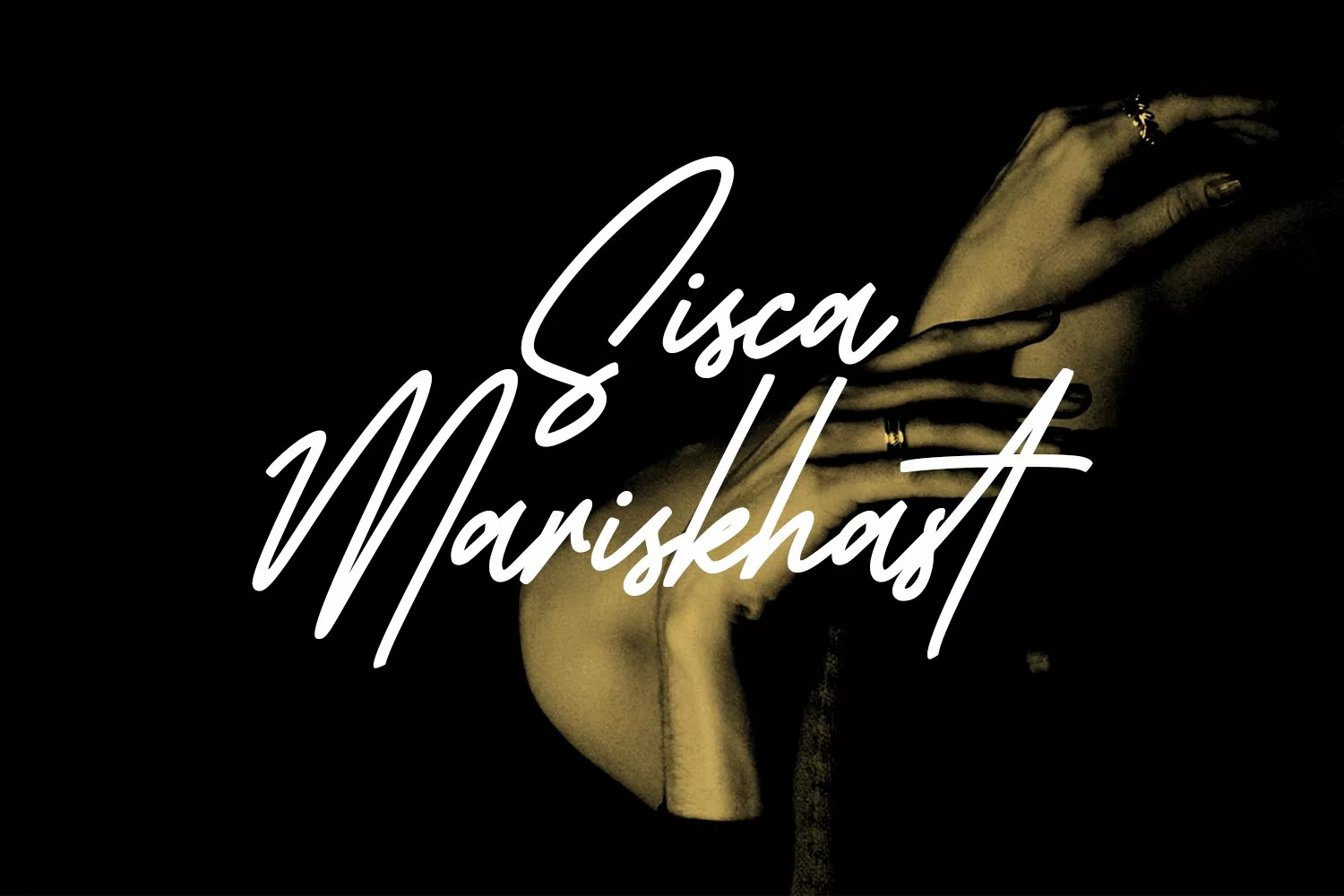
Manic Streets is a fancy hsignature super slanted script font. With regular stroke, fun character with a bit of ligatures and alternates. To give you an extra creative work. Manic Streets font support multilingual more than 100+ language. This font is good for logo design, Social media, Movie Titles, Books Titles, a short text even a long text letter and good for your secondary text font with sans or serif. Make a stunning work with Manic Streets font.
Manic Streets